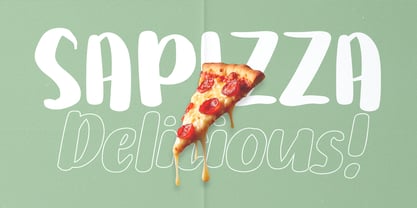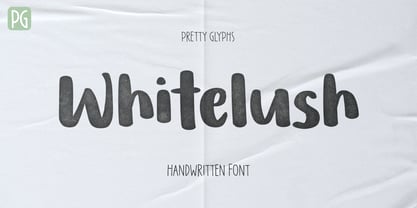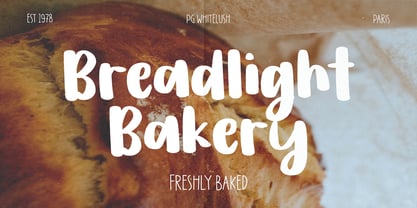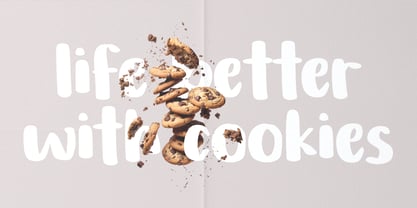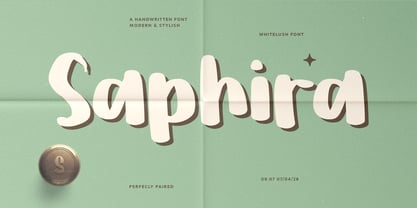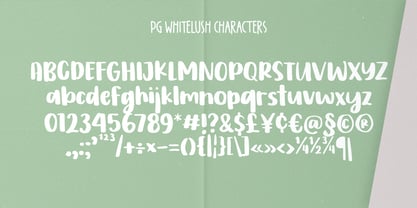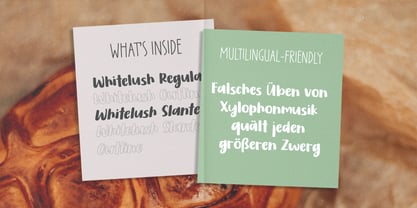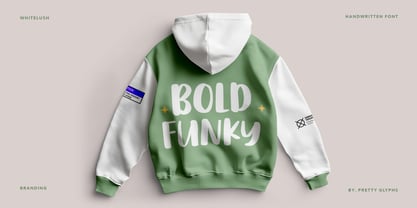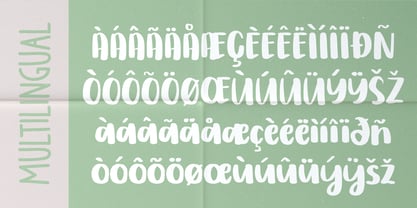
PG Whitelush
by Pretty Glyphs
The PG Whitelush Font Family was designed by Ulfa Tiara Putri and published by Pretty Glyphs. PG Whitelush contains 4 styles and family package options. More about this family
PG Whitelush is a beautiful handwritten font that combines effortless elegance with a natural personal touch. Featuring smooth flowing strokes, graceful curves, and authentic hand-drawn details, this font creates a sophisticated yet approachable look for a wide range of creative projects. Perfect for branding, logos, packaging, social media content, invitations, wedding stationery, beauty products, and lifestyle designs, PG Whitelush brings warmth, charm, and modern style to every composition. Its balanced readability and expressive handwritten character make it an ideal choice for designers seeking typography that feels both refined and genuinely handcrafted.
Designers: Ulfa Tiara Putri
Foundry: Pretty Glyphs